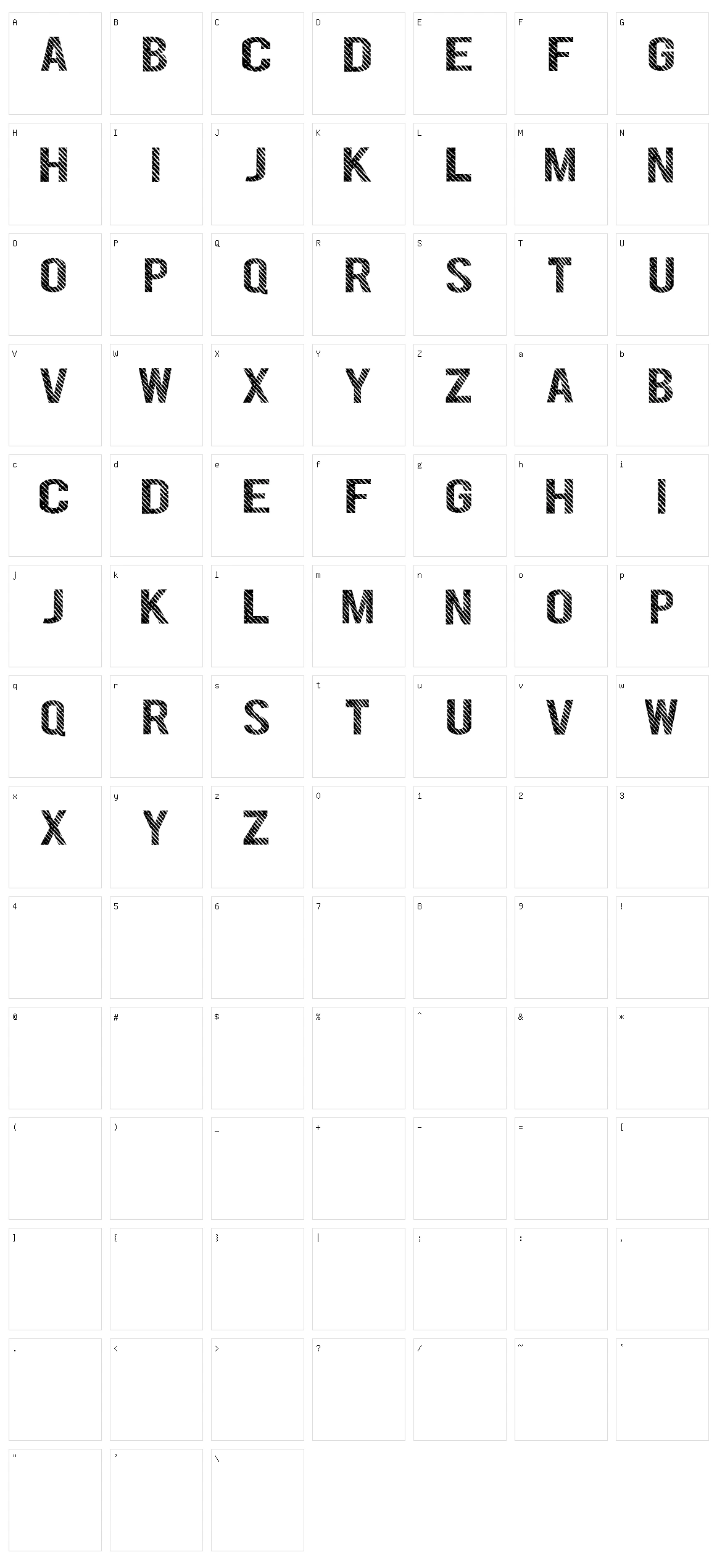
The free font Denym is carefully designed by deedz, showcasing a thoughtful balance of creativity and usability and falls under the Eroded font style. When you download the ZIP file, it contains only 105.05 KB of font files, making it lightweight and quick to download. Please review the license details below to understand permitted usage and distribution rights. If license information is not available, we recommend using this font for personal projects only or contacting the author directly for commercial usage permissions.